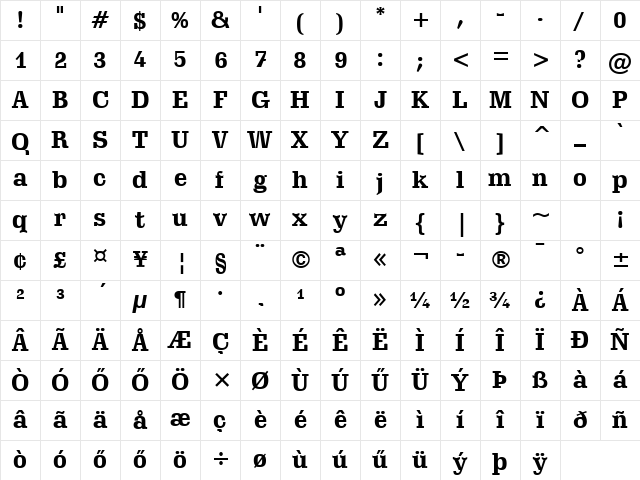
Huni_Schadow BT Bold Regular
Design Context for Huni_Schadow BT Bold
Huni_Schadow BT Bold is a composed and adaptable typeface that performs quietly and consistently across a wide range of design contexts. Its bold stroke weight gives it real presence on the page.